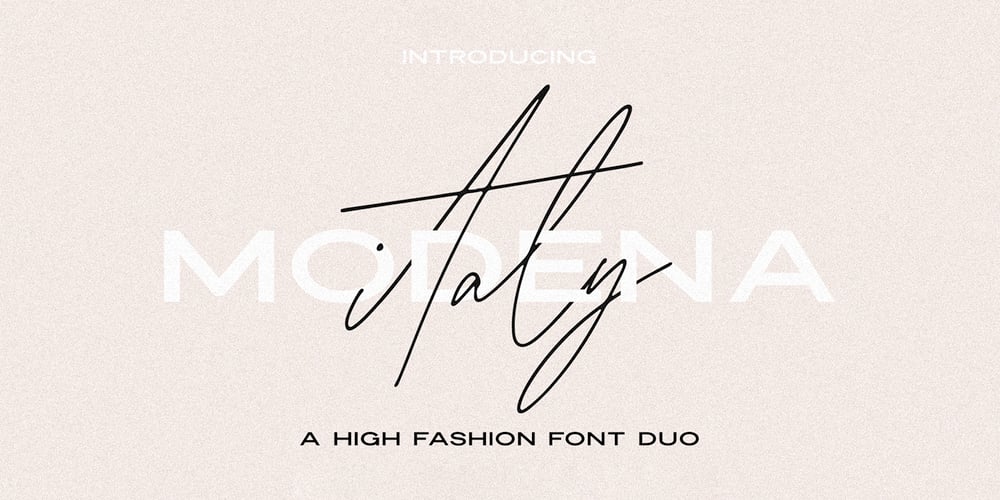
Modena JW Font Duo Font Family was designed by Jen Wagner and published by Jen Wagner Co.. Modena JW Font Duo contains 2 styles and family package options. Modena is a beautiful high fashion font duo that makes for gorgeous logos, posters, wedding invitations, blog posts, social media, and more!I love using them together with layer masks in Photoshop, so it looks like the script is running through the lines of the sans serif. The sans looks stunning with tracking set to 220, as well as where it falls normally at 0!Modena Script includes over 50 ligatures to make everything look totally hand-done, and alternates for each letter.